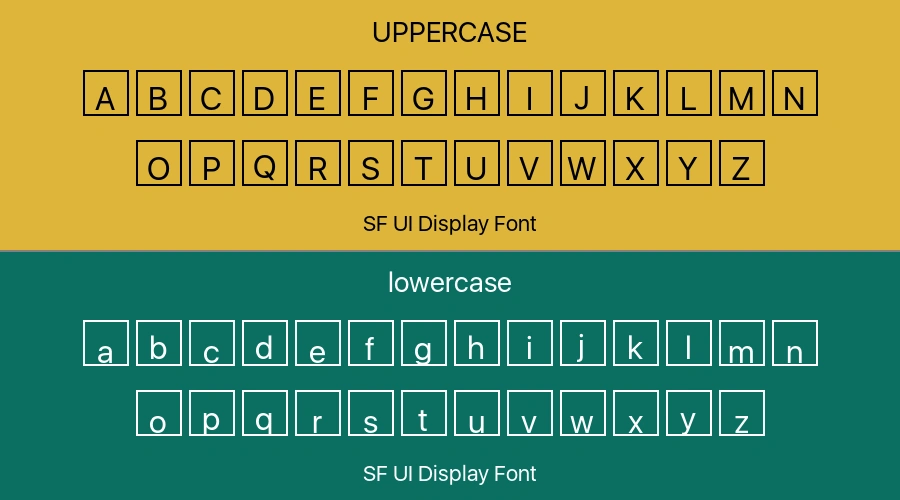
About SF UI Display Font
SF UI Display Font embodies typographic excellence through its masterful combination of harmonious shapes and precision. Created for brand identities, this typeface delivers exceptional flexibility and market confidence across all applications. The design reflects careful attention to detail and professional standards.
Advanced capabilities include distinctive open counters and versatile expert sets, giving designers creative control. When used in captions, SF UI Display Font exhibits remarkable consumer preference. The harmonious balance between contrast level and market positioning sets this typeface apart.